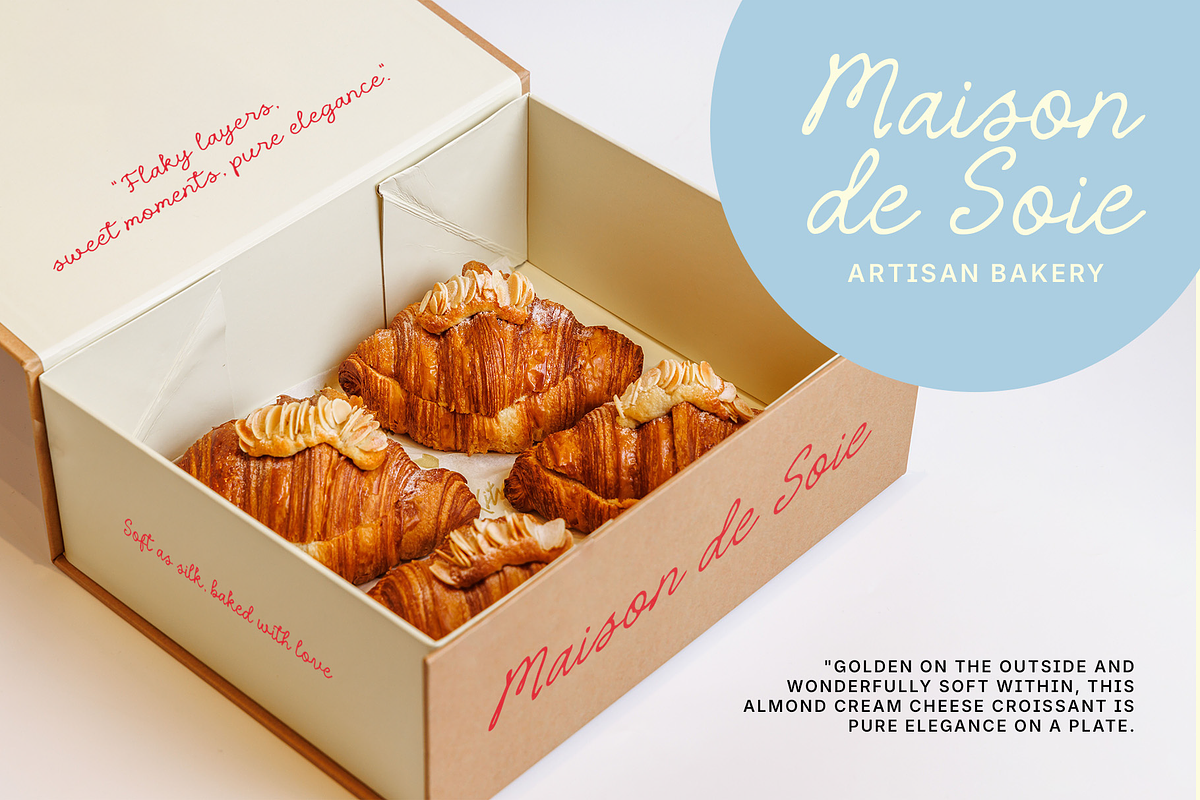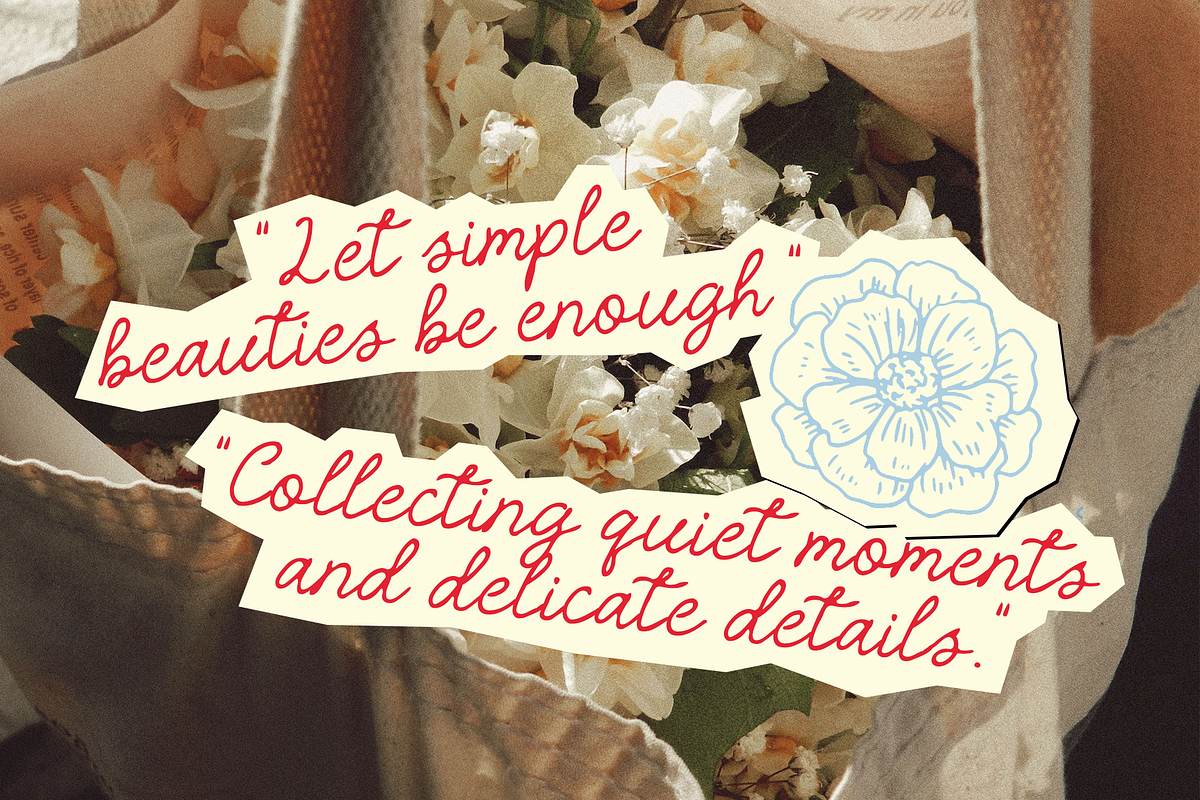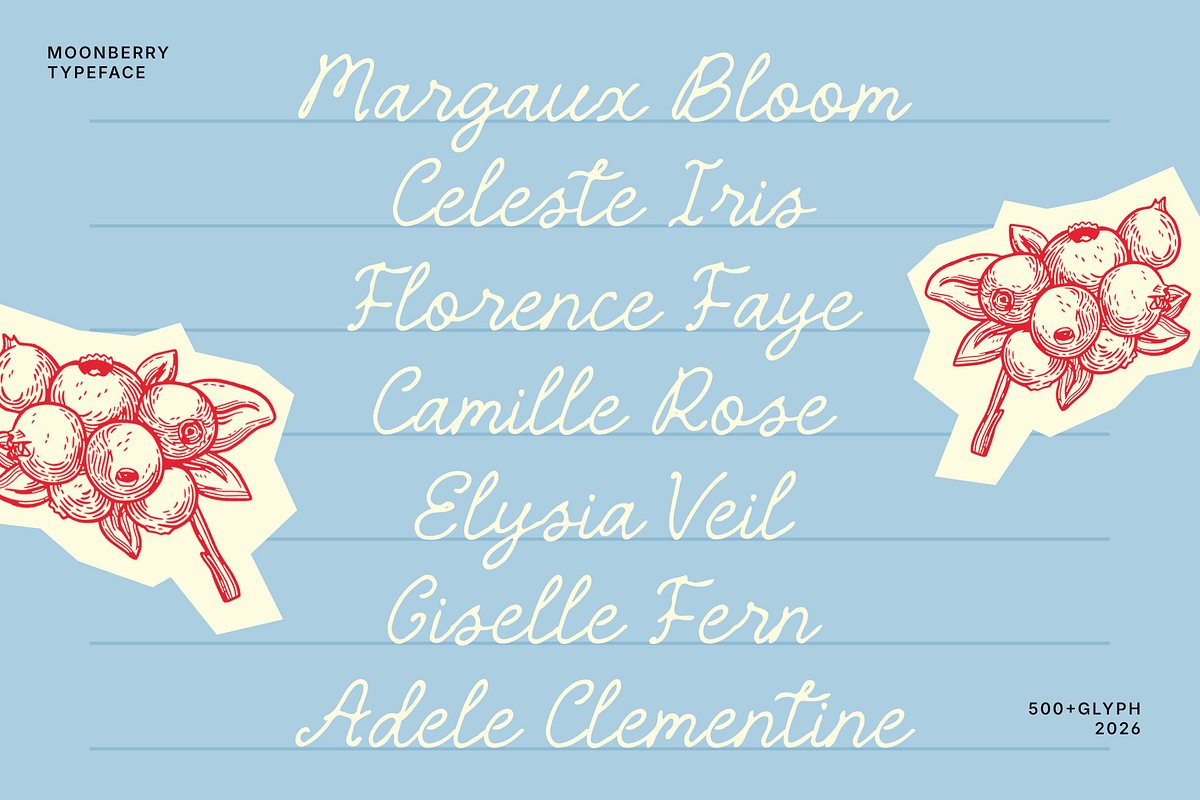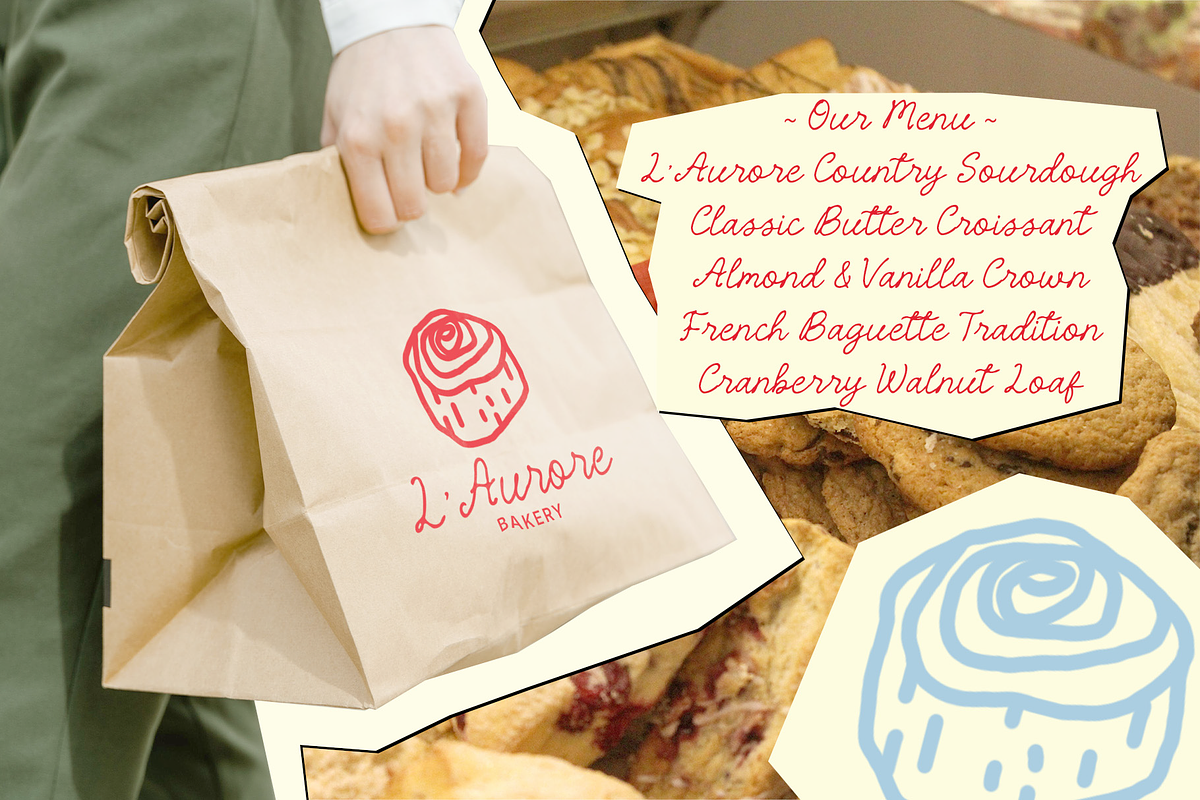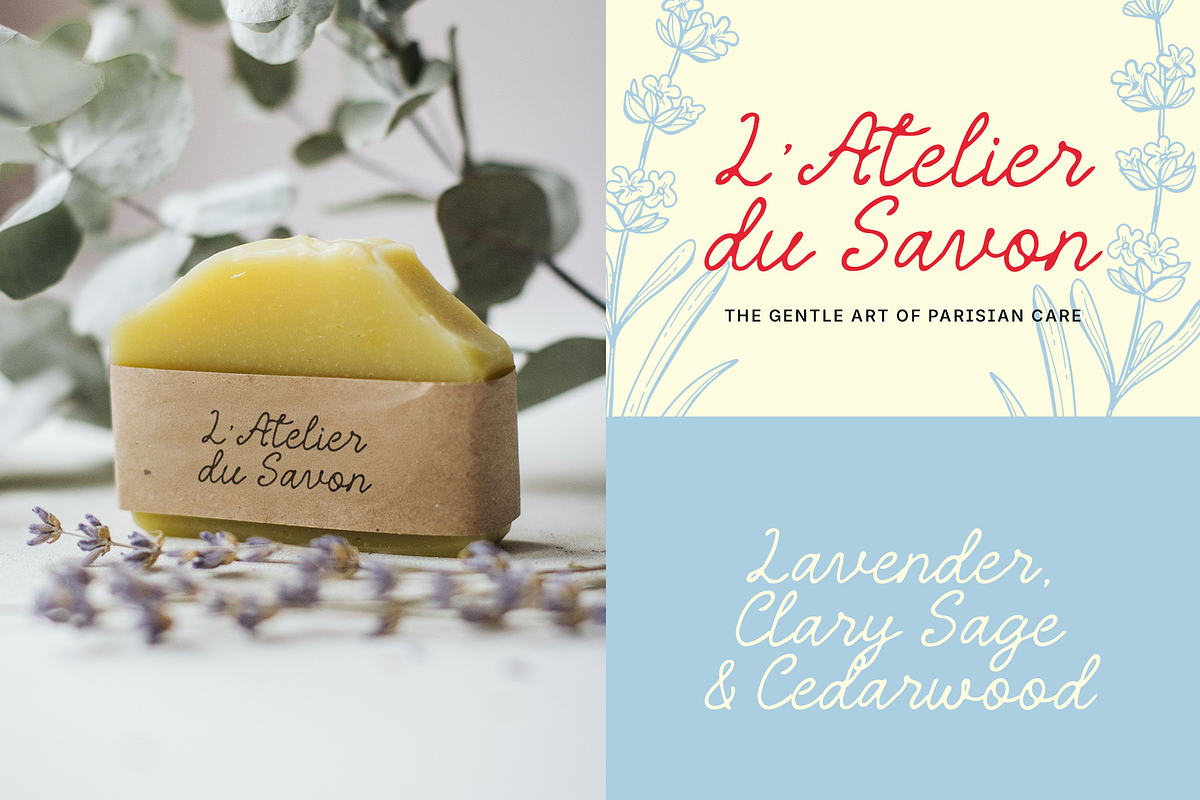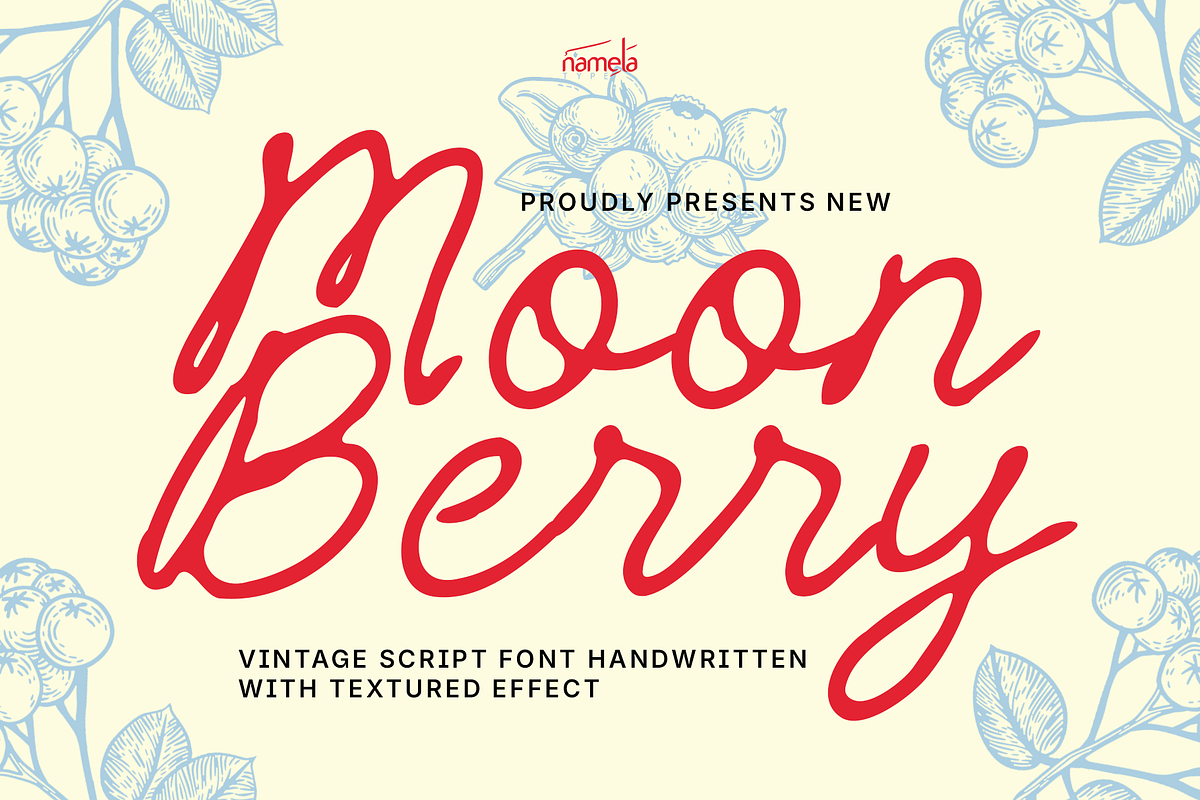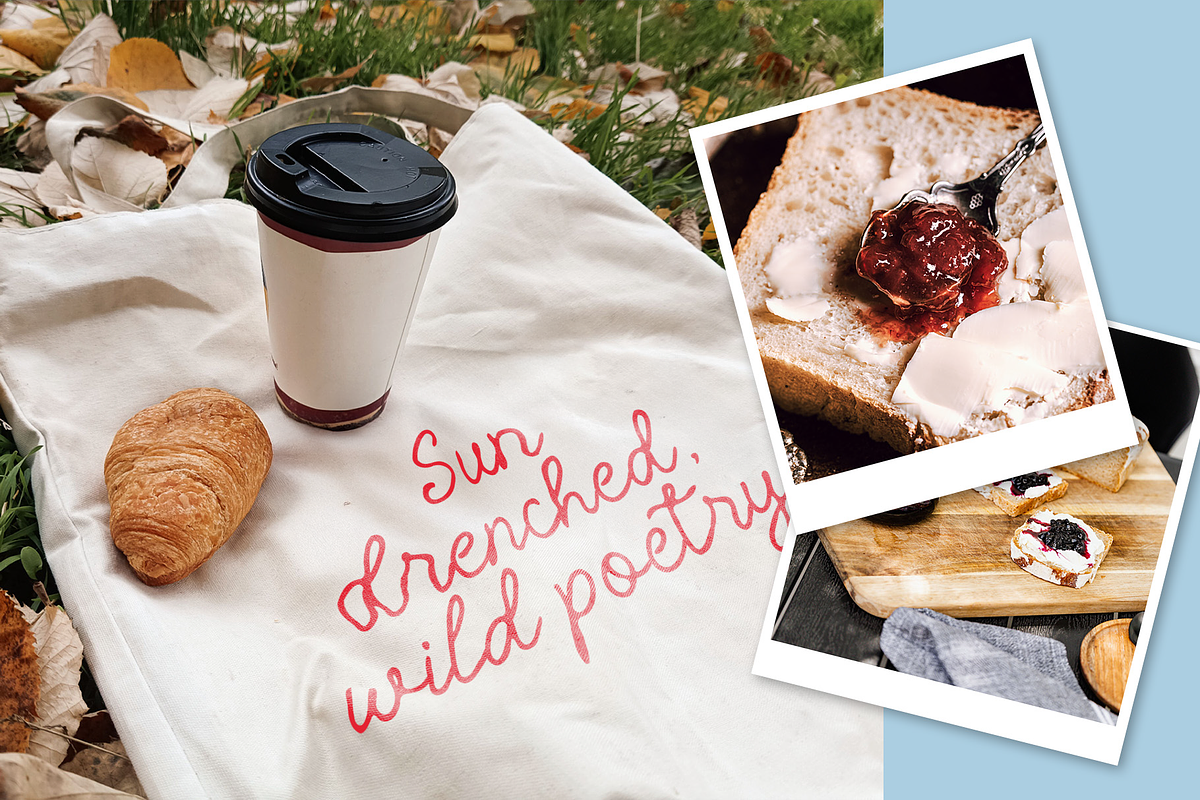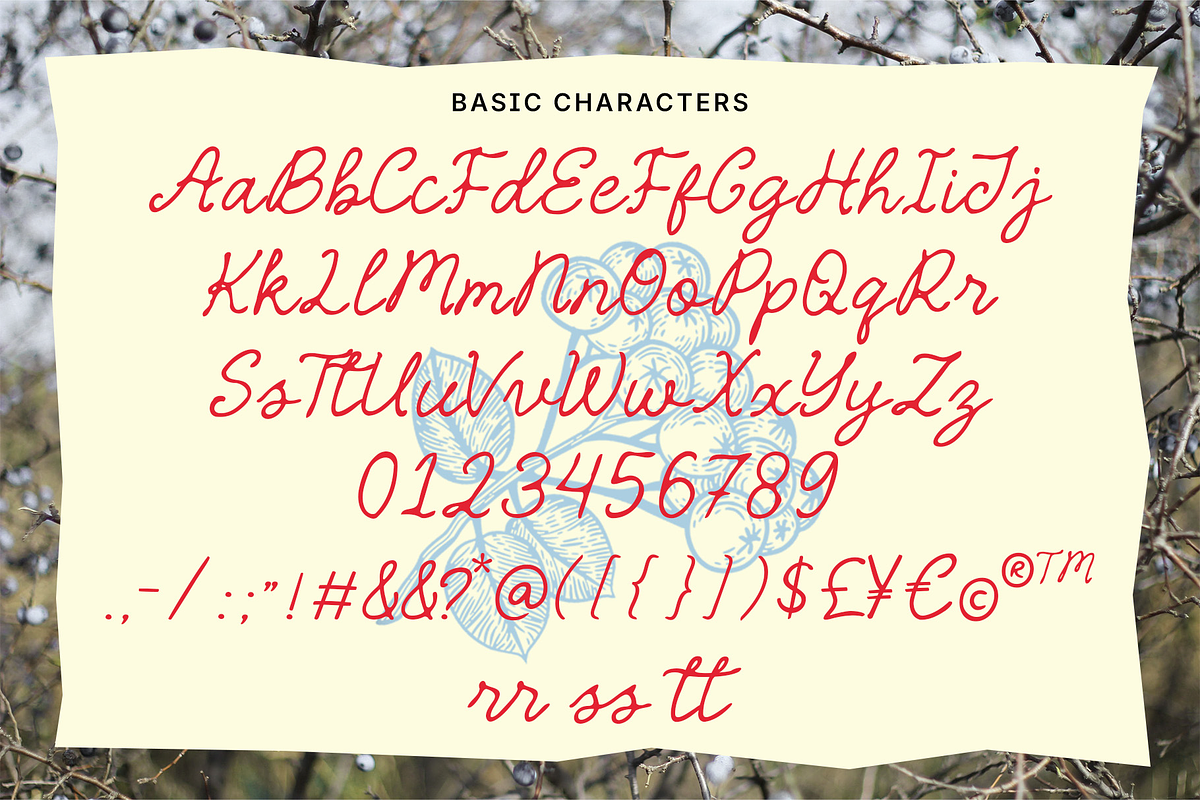
Moonberry Vintage Handwritten Script
Moonberry – Vintage Handwritten Script Typeface for Artisan Branding and Timeless Design
Moonberry is a vintage script typeface inspired by cozy cafés, artisan bakeries, handwritten recipes, and timeless European charm. Featuring flowing letterforms with soft textured strokes, this typeface captures the warmth and authenticity of genuine handwriting while adding refined handcrafted elegance to every design. Its relaxed rhythm, graceful curves, and natural movement create typography that feels personal, inviting, and effortlessly beautiful.
Created for designers who value authenticity and craftsmanship, Moonberry blends nostalgic vintage aesthetics with contemporary versatility. Whether used for branding, packaging, editorial publishing, or digital media, the typeface communicates warmth, sophistication, and emotional connection through every carefully drawn character.
Moonberry is distinguished by flowing handwritten glyphs, expressive curves, and subtly textured strokes that recreate the appearance of naturally written lettering. Smooth character connections establish an effortless rhythm throughout words, producing typography that feels graceful, fluid, and genuinely handcrafted.
The typeface carefully balances decorative beauty with functional readability, allowing it to perform beautifully across logos, packaging, invitations, editorial layouts, menus, labels, and digital content. Its textured finish introduces visual richness while maintaining a clean and elegant presentation suitable for premium branding.
With more than 500 carefully crafted glyphs, multilingual support, and professional ligatures, Moonberry offers designers exceptional creative flexibility for sophisticated multilingual typography.
Variable and OpenType Features
Moonberry includes:
Uppercase & Lowercase Characters
500+ Glyphs
Standard Ligatures
Vintage Handwritten Script Style
Textured Lettering
OpenType Features
Advanced OpenType Features
Access All Alternates (aalt)
Glyph Composition (ccmp)
Standard Ligatures (liga)
Localized Forms (locl)
Stylistic Alternates (salt)
Stylistic Sets (ss01)
Denominator (dnom)
Fractions (frac)
Numerator (numr)
Ordinals (ordn)
Scientific Inferiors (sinf)
Subscript (subs)
Superscript (sups)
Kerning (kern)
Mark Positioning (mark)
Mark-to-Mark Positioning (mkmk)
These professional typography features provide designers with exceptional flexibility for branding, editorial design, publishing, packaging, stationery, and multilingual commercial projects.